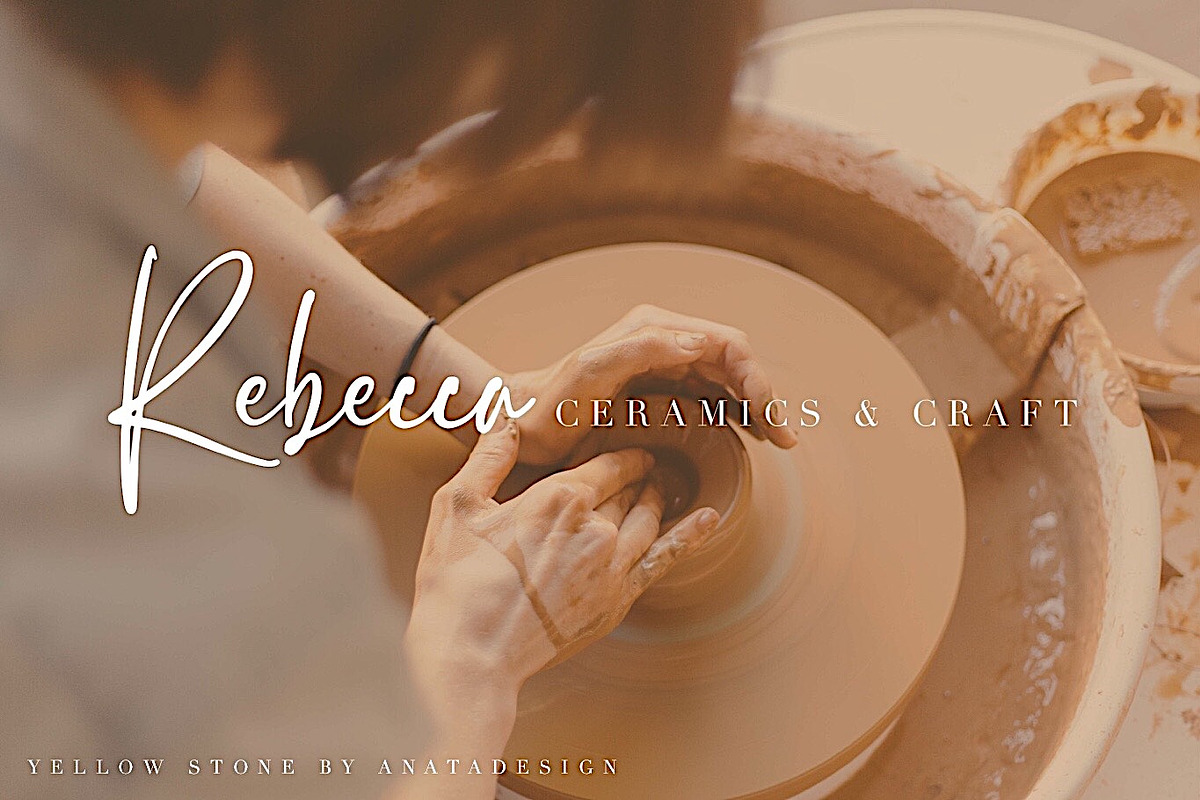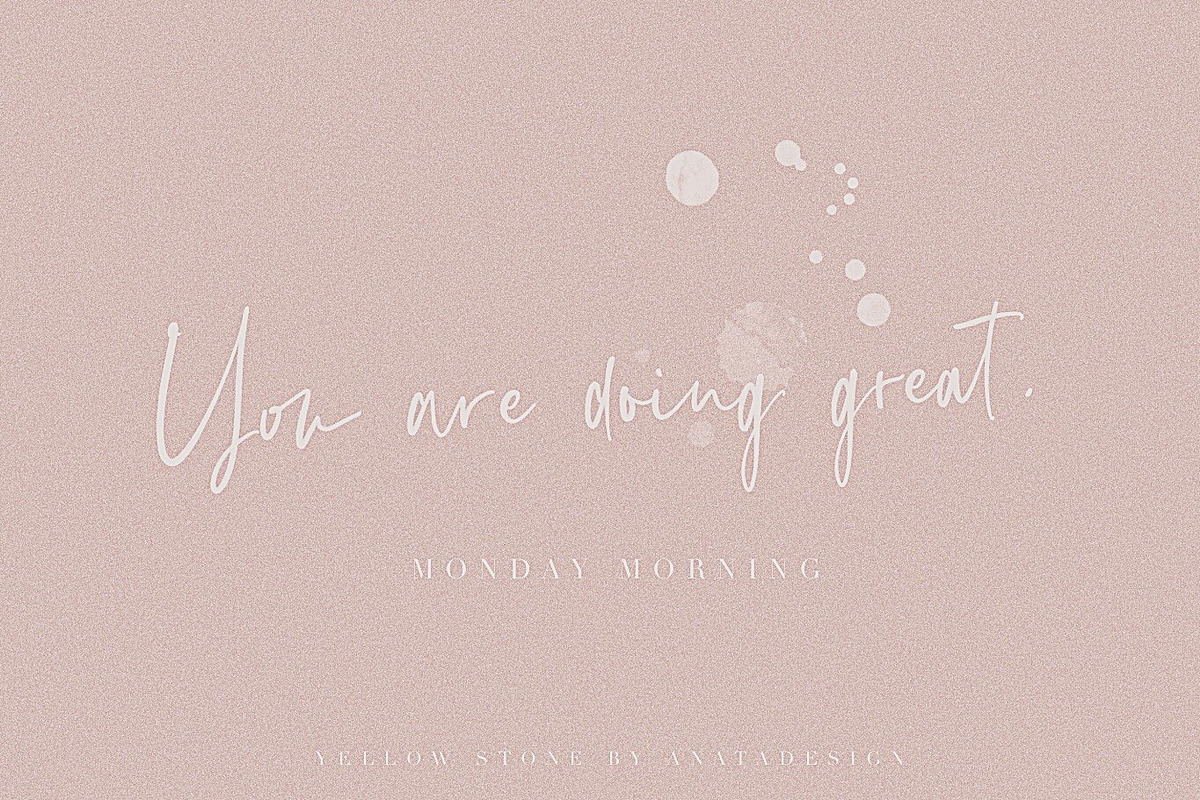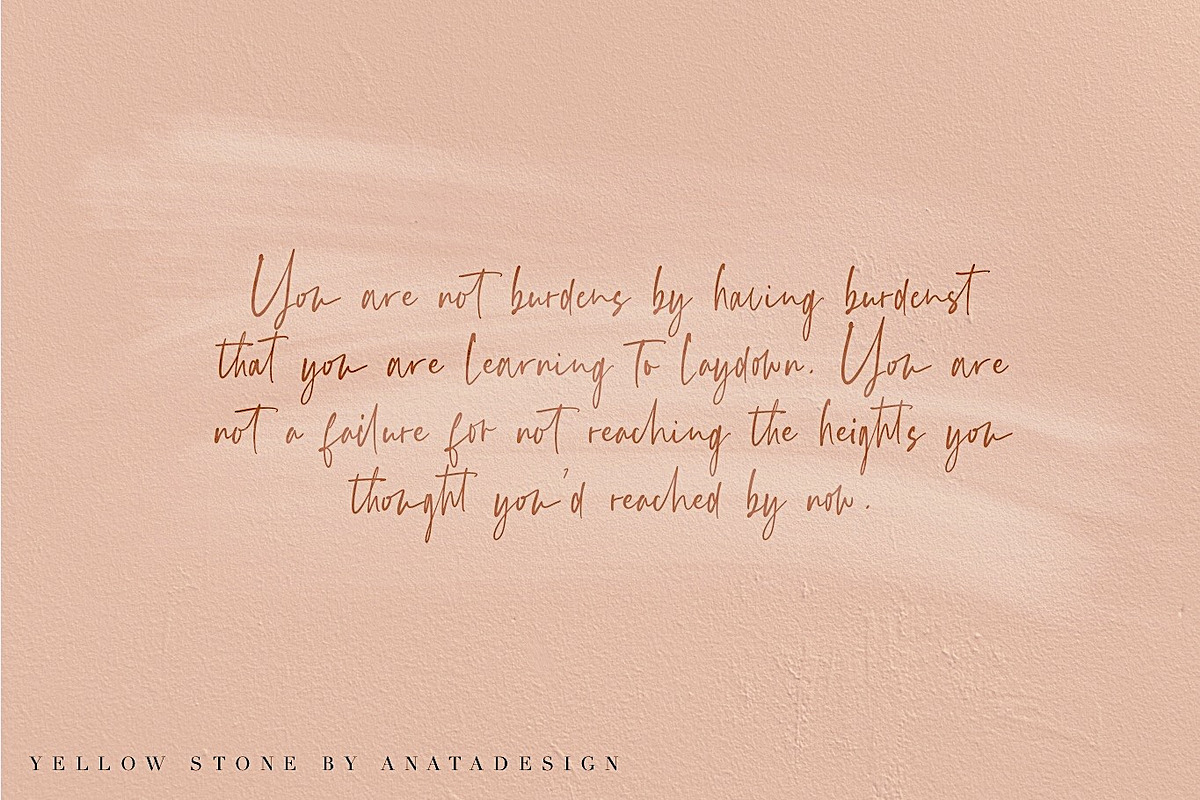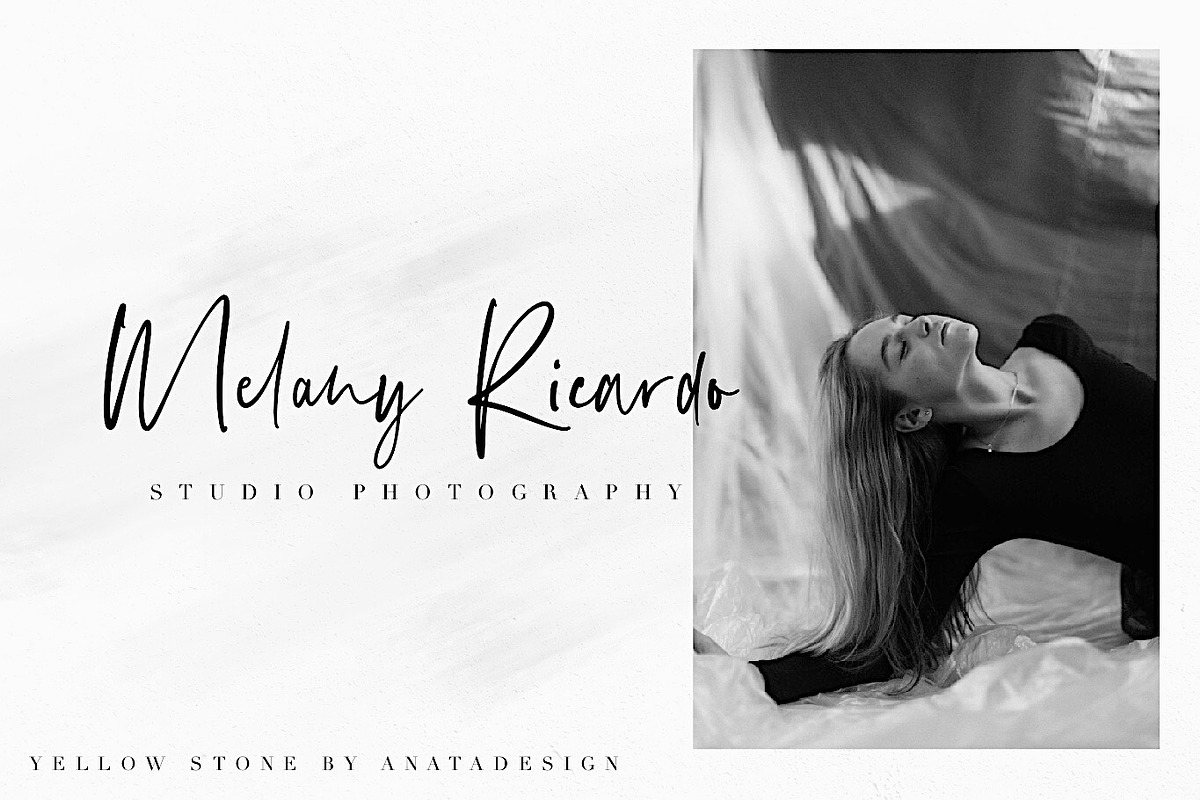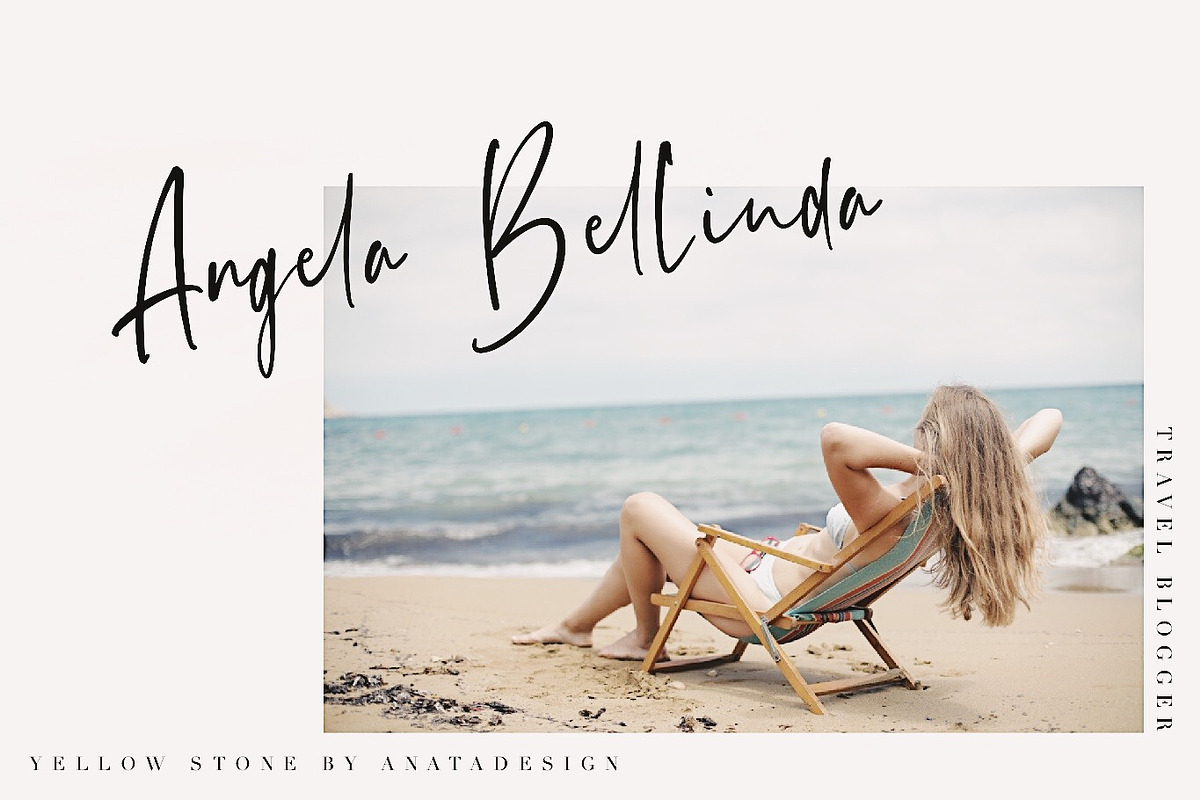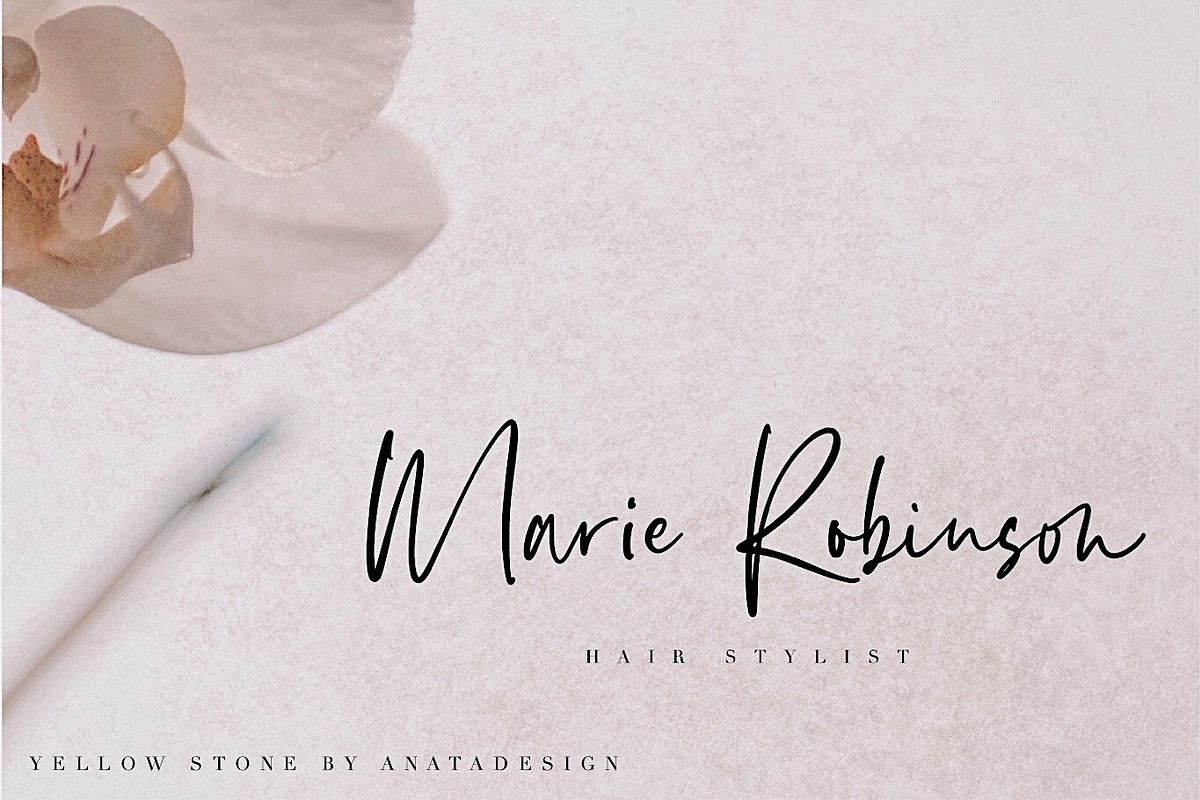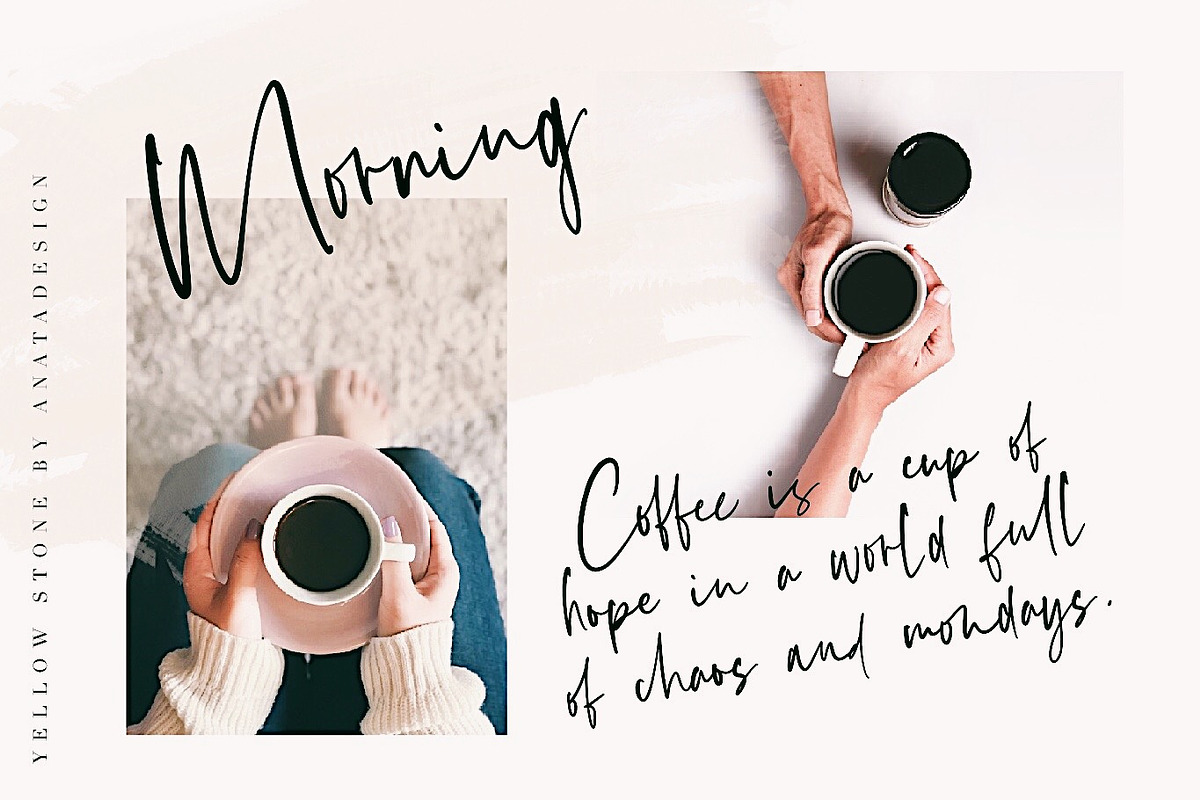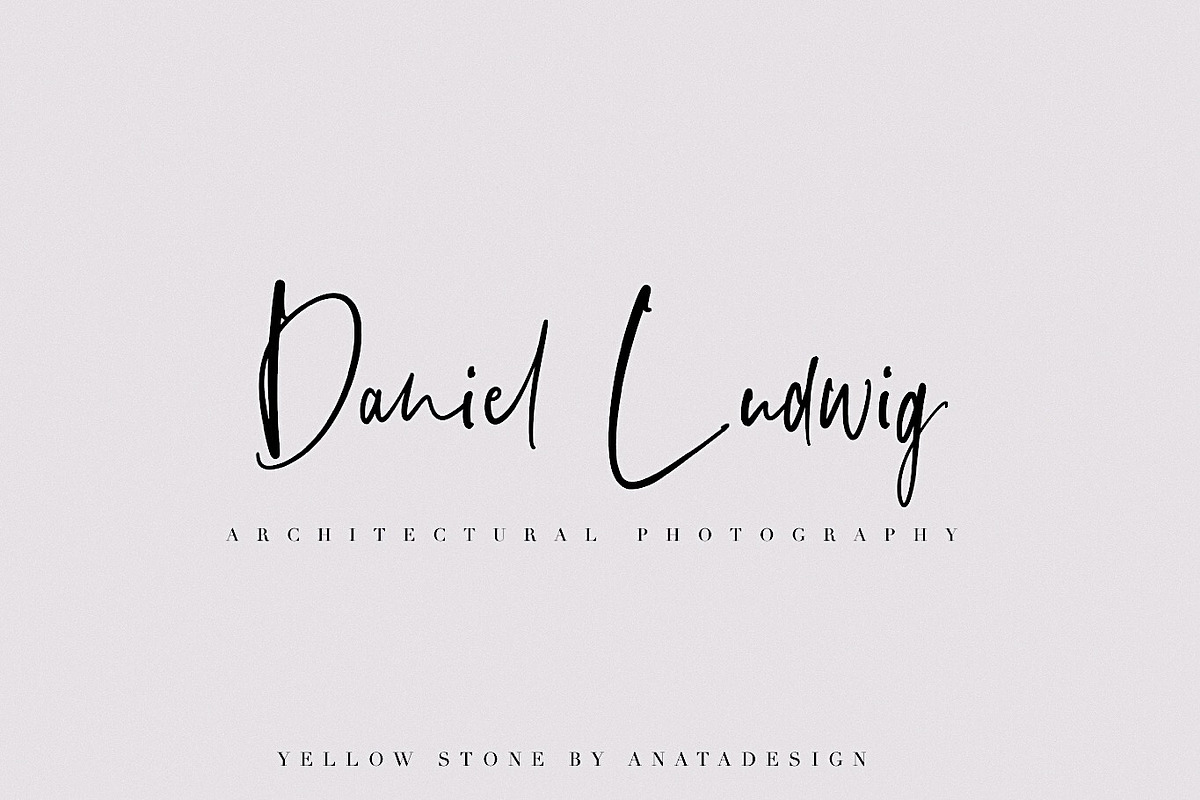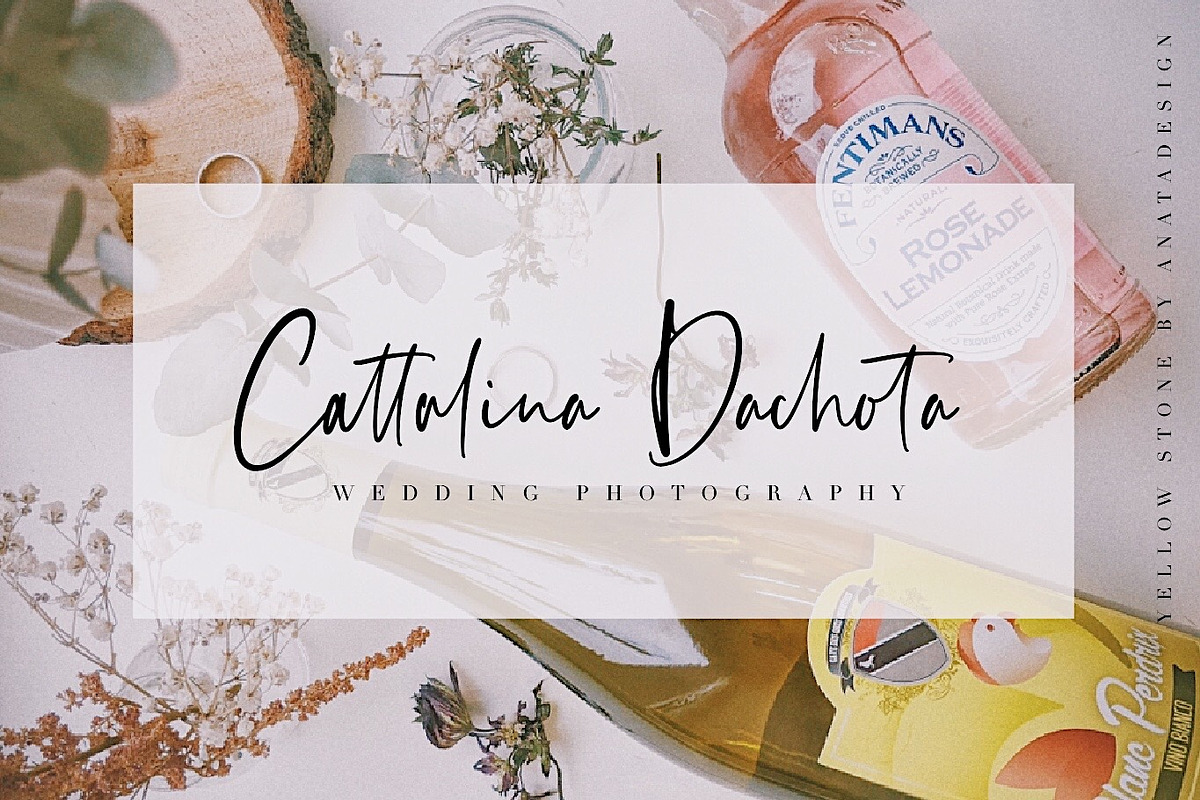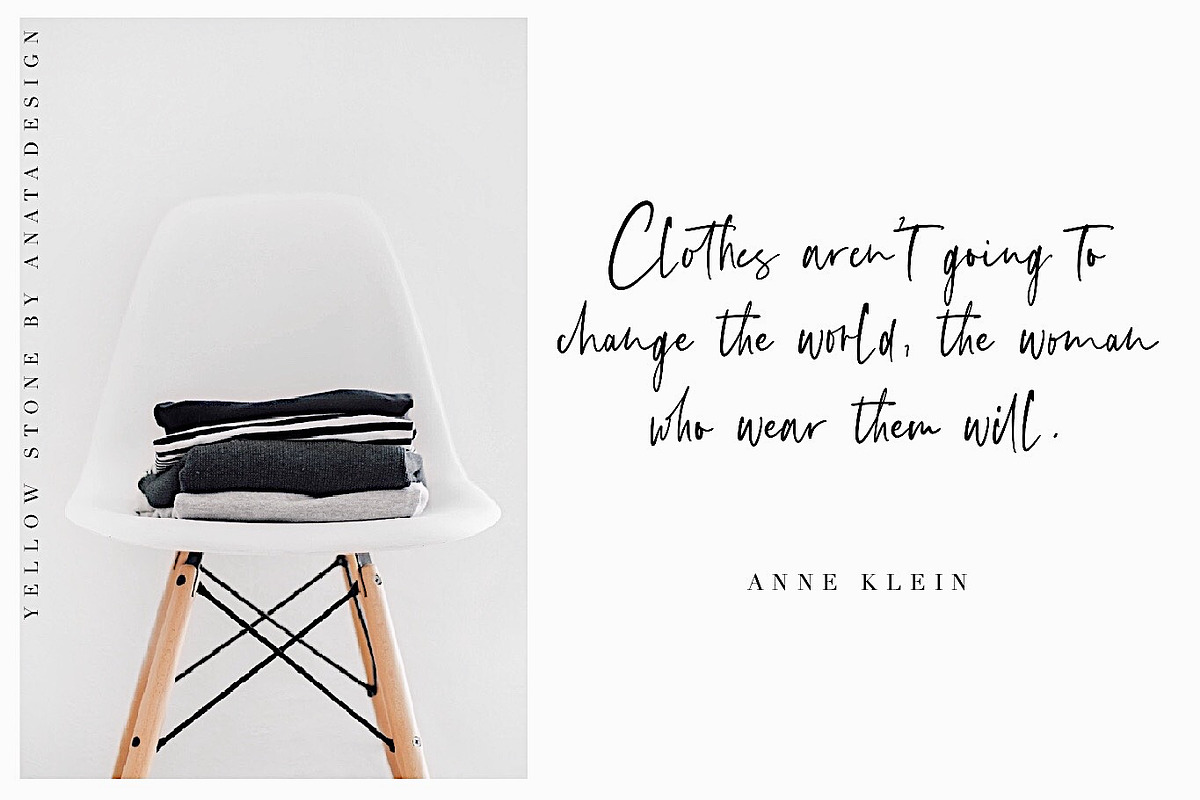
Hello!! Introducing a modern script font!!
Yellow Stone is a modern and beautiful signature font. This font really suits well for gorgeous logos, posters, wedding invitations, blog posts, social media, and other designs!
This font also support more languages with characters such ÀÁÂÃÄÅÆÇÈÉÊËÌÍÎÏÑÒÓÔÕÖÙÚÛÜÝàáâãäåæçèéêëìíîïðñòóôõöùúûüýÿŸŠ.
Yellow Stone has more than 50 ligatures will make your design look high end, feminine, sexy and elegant.